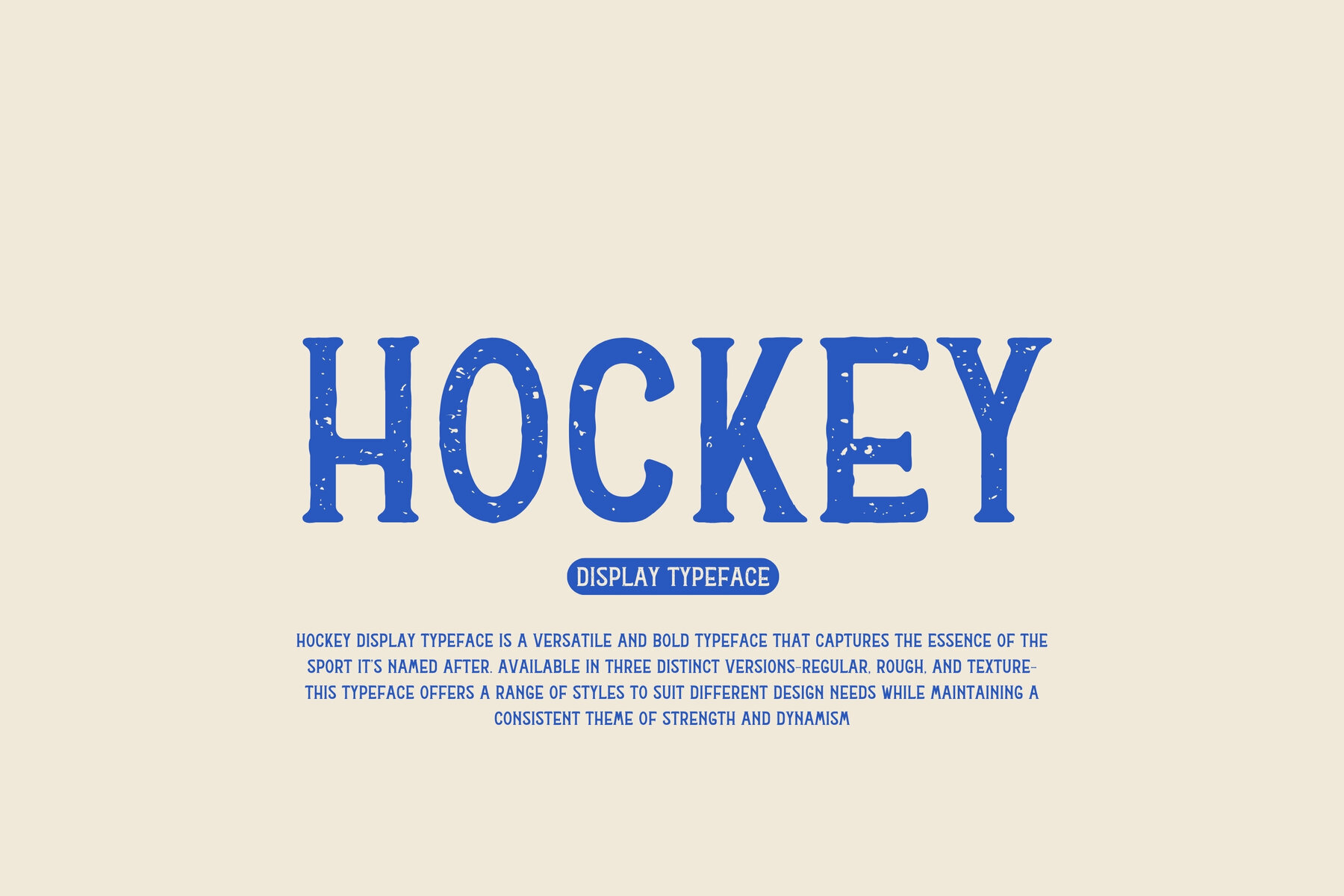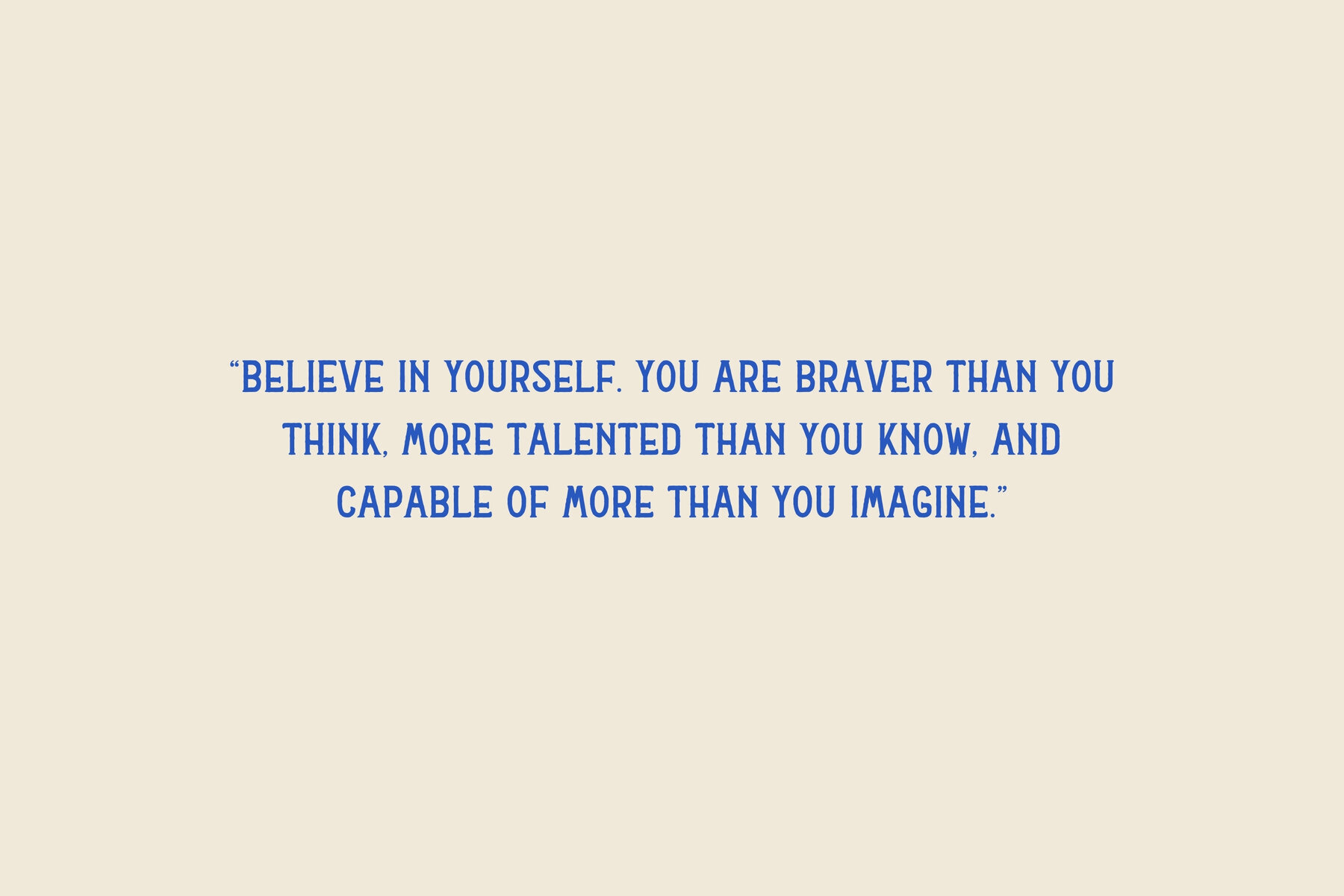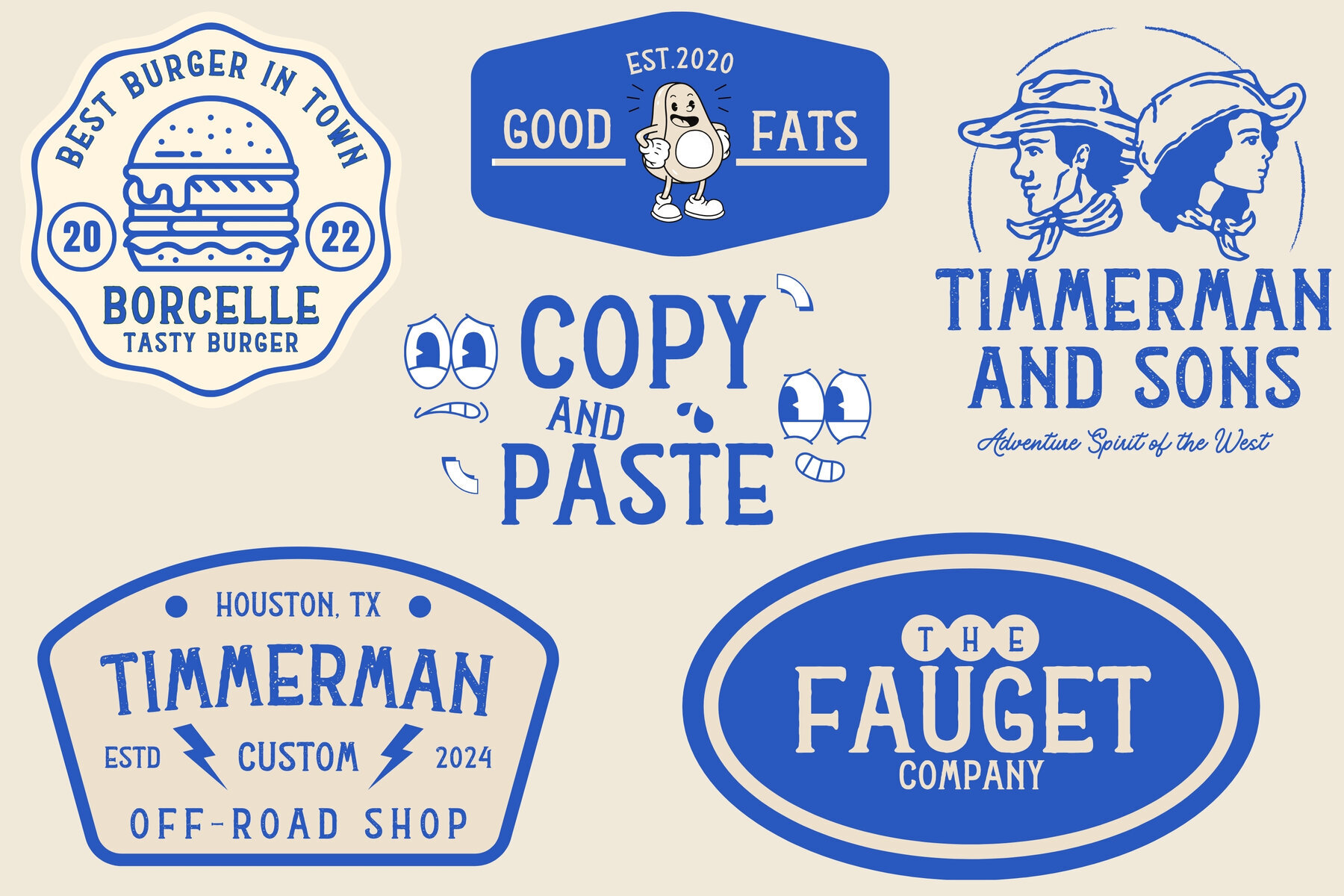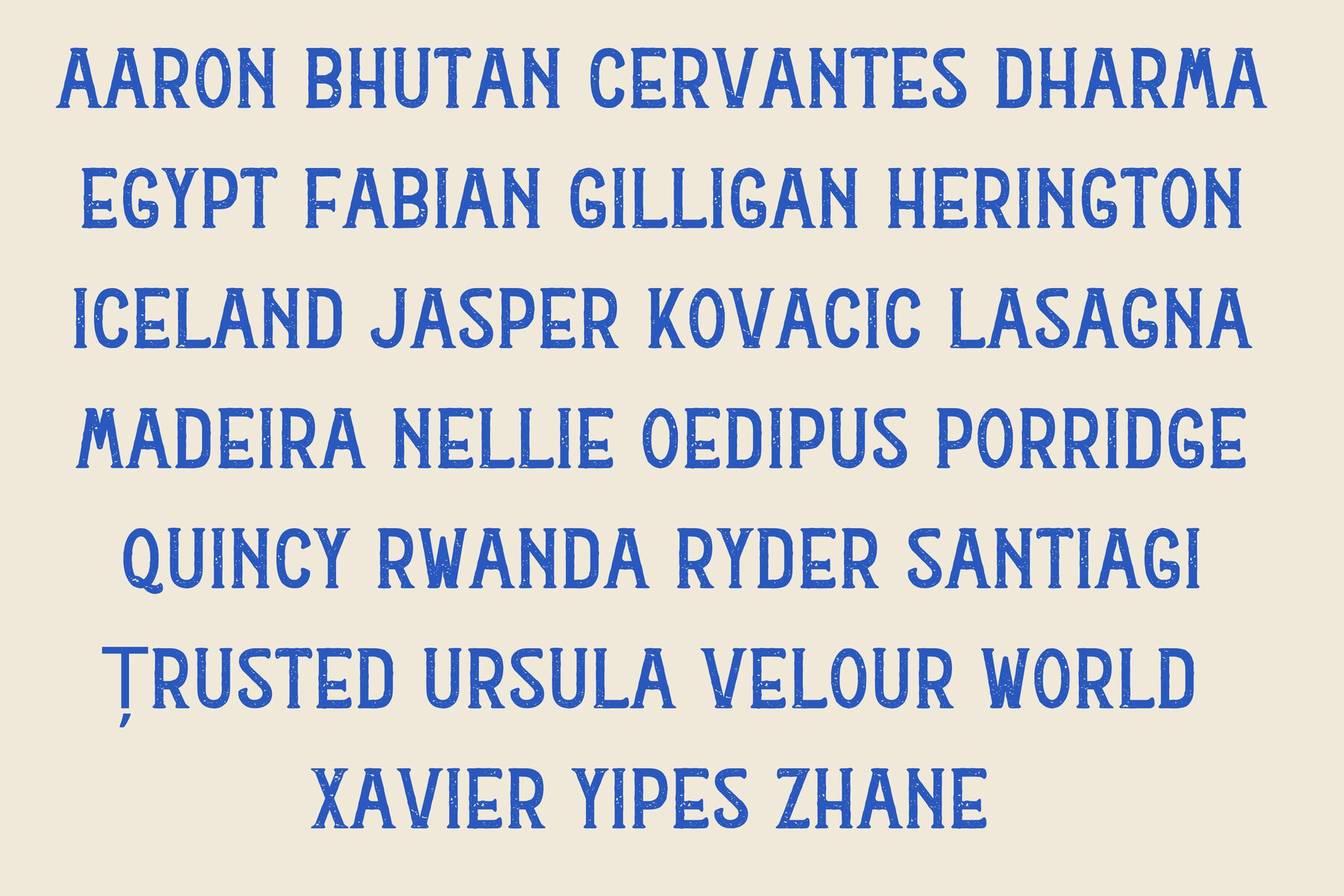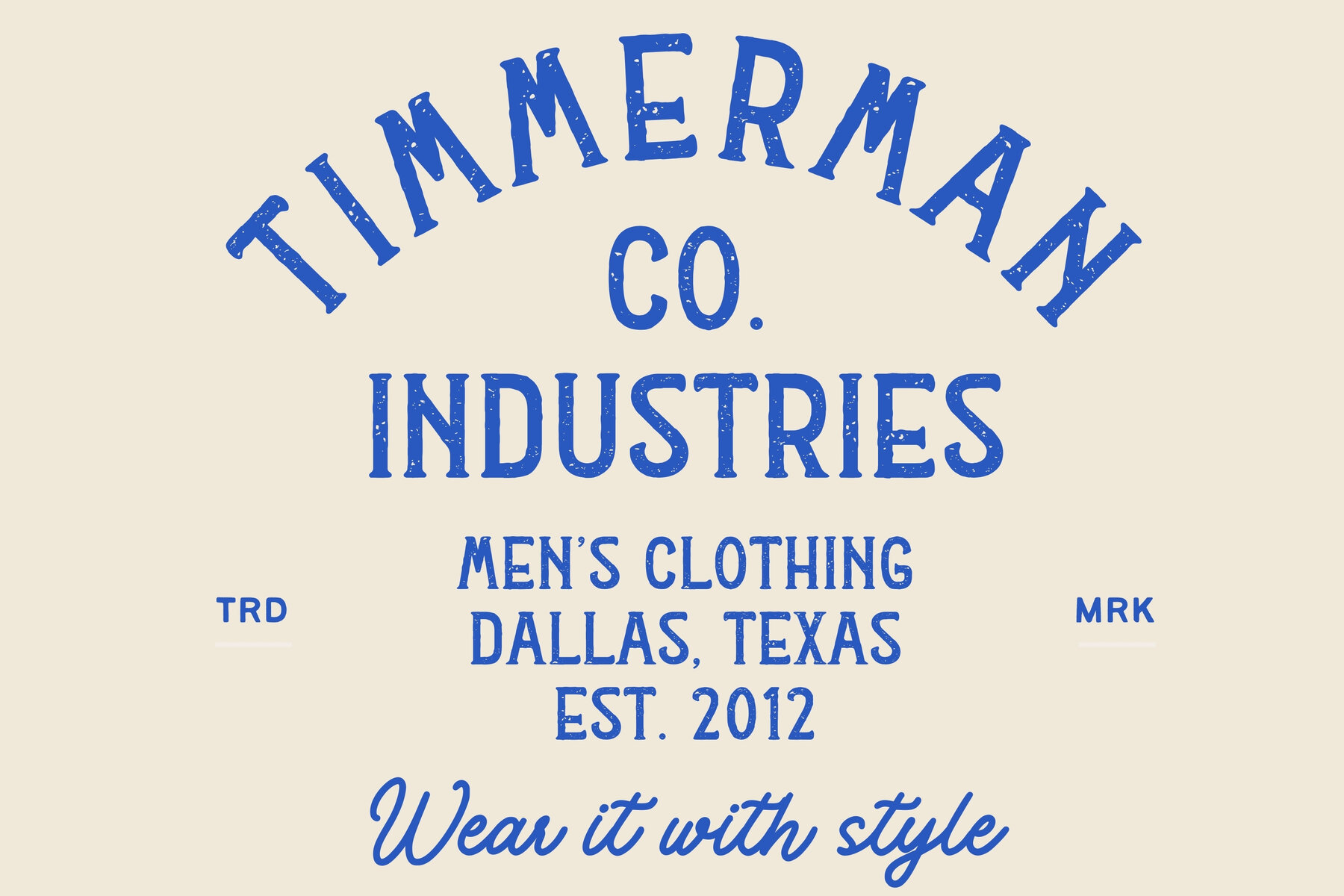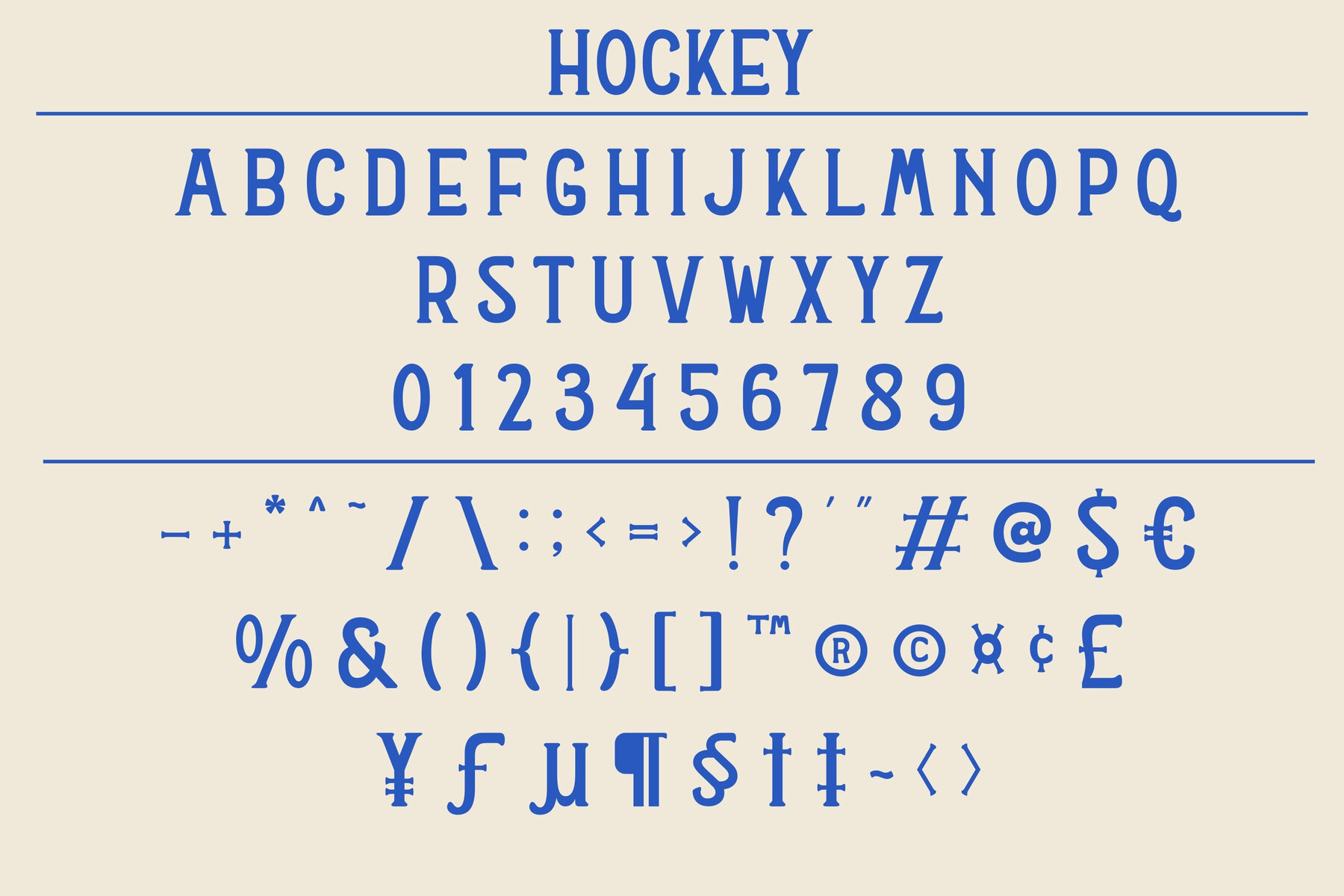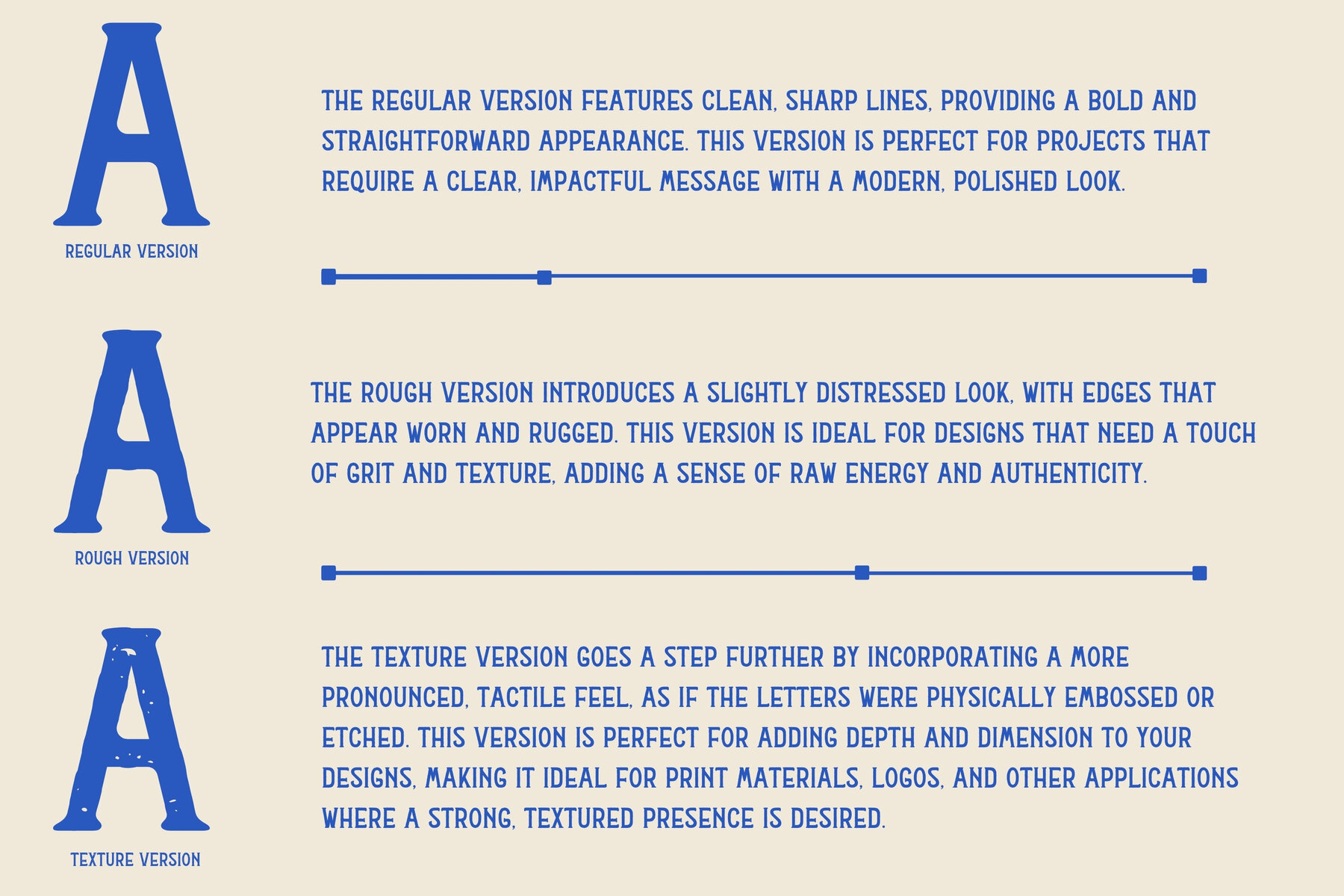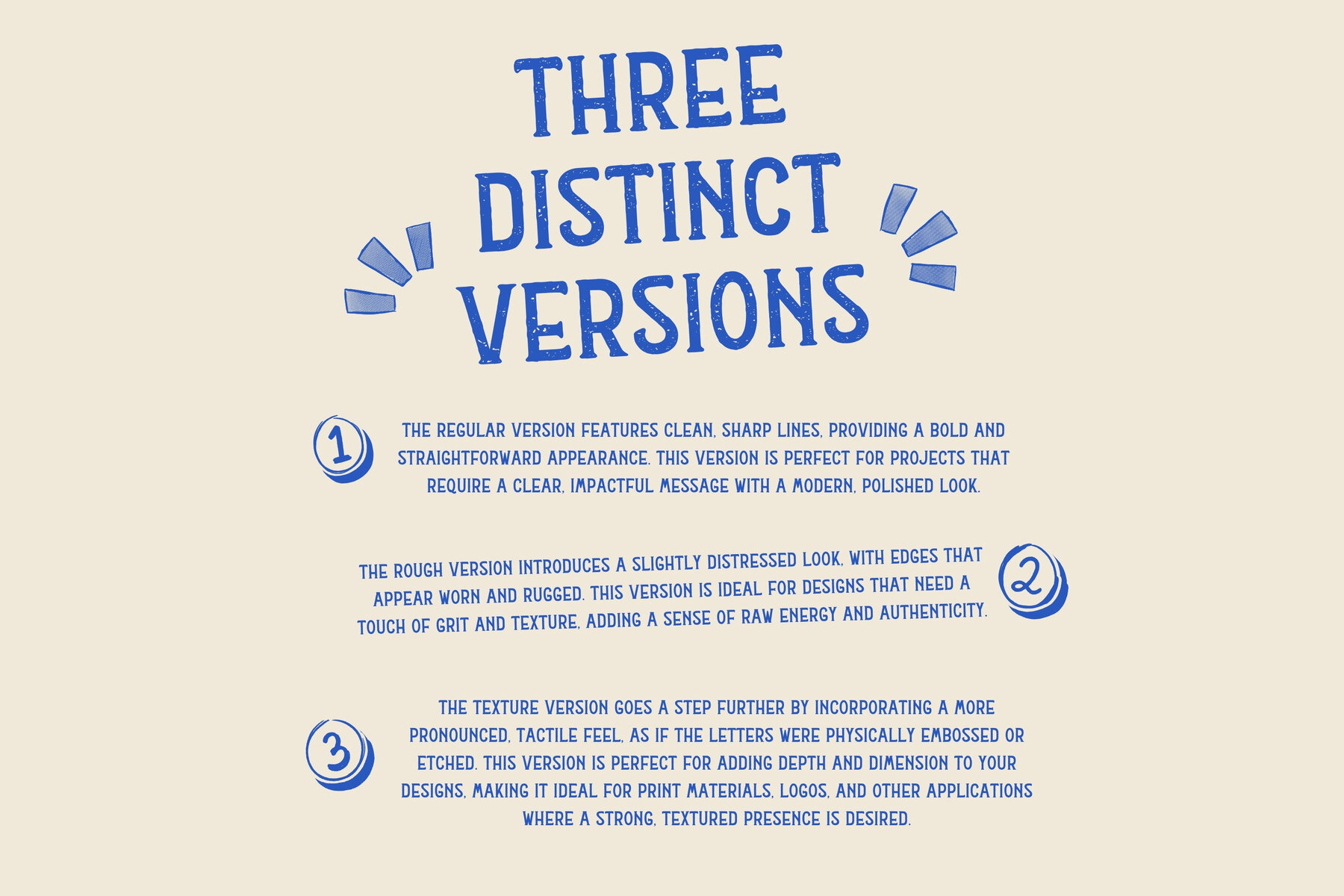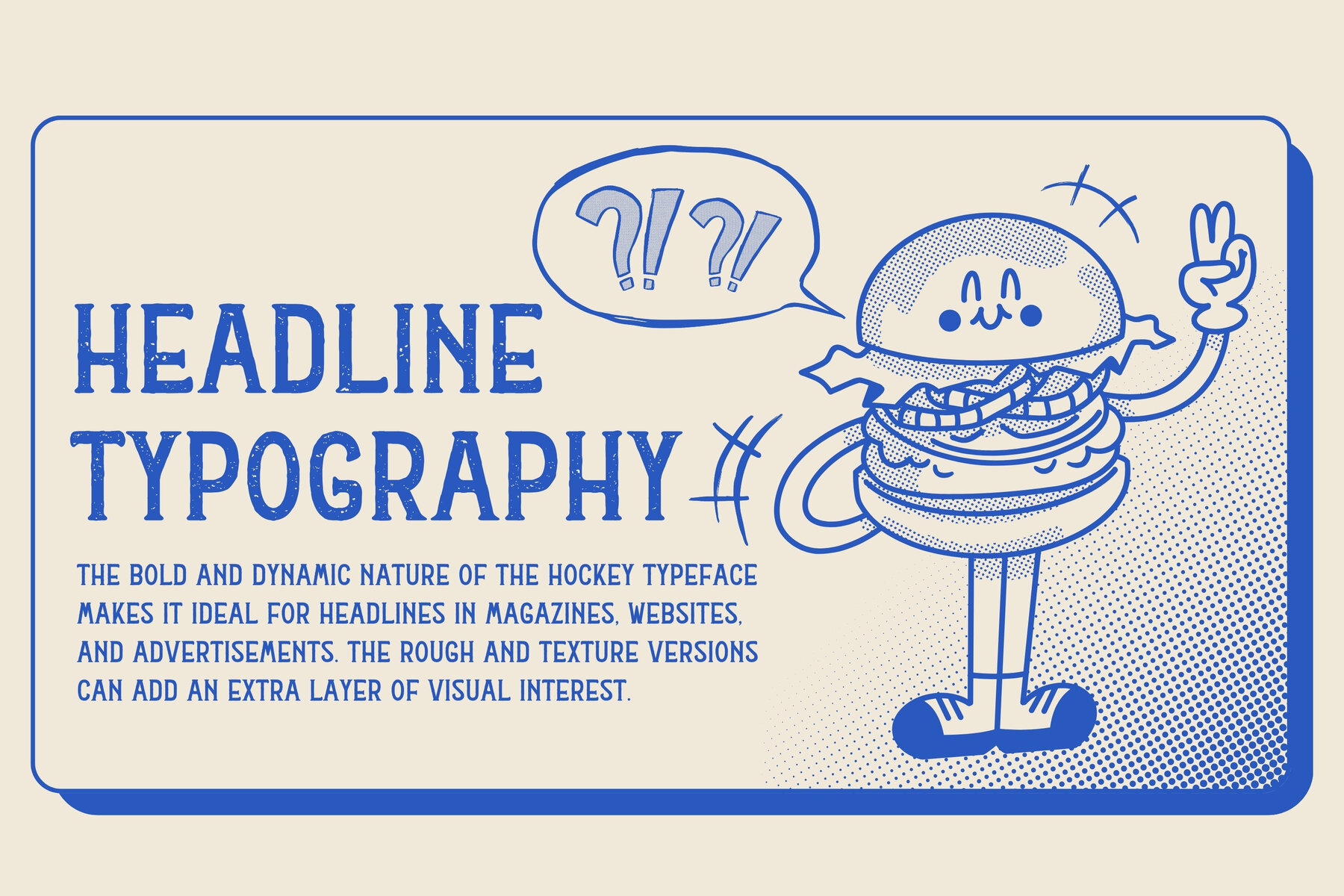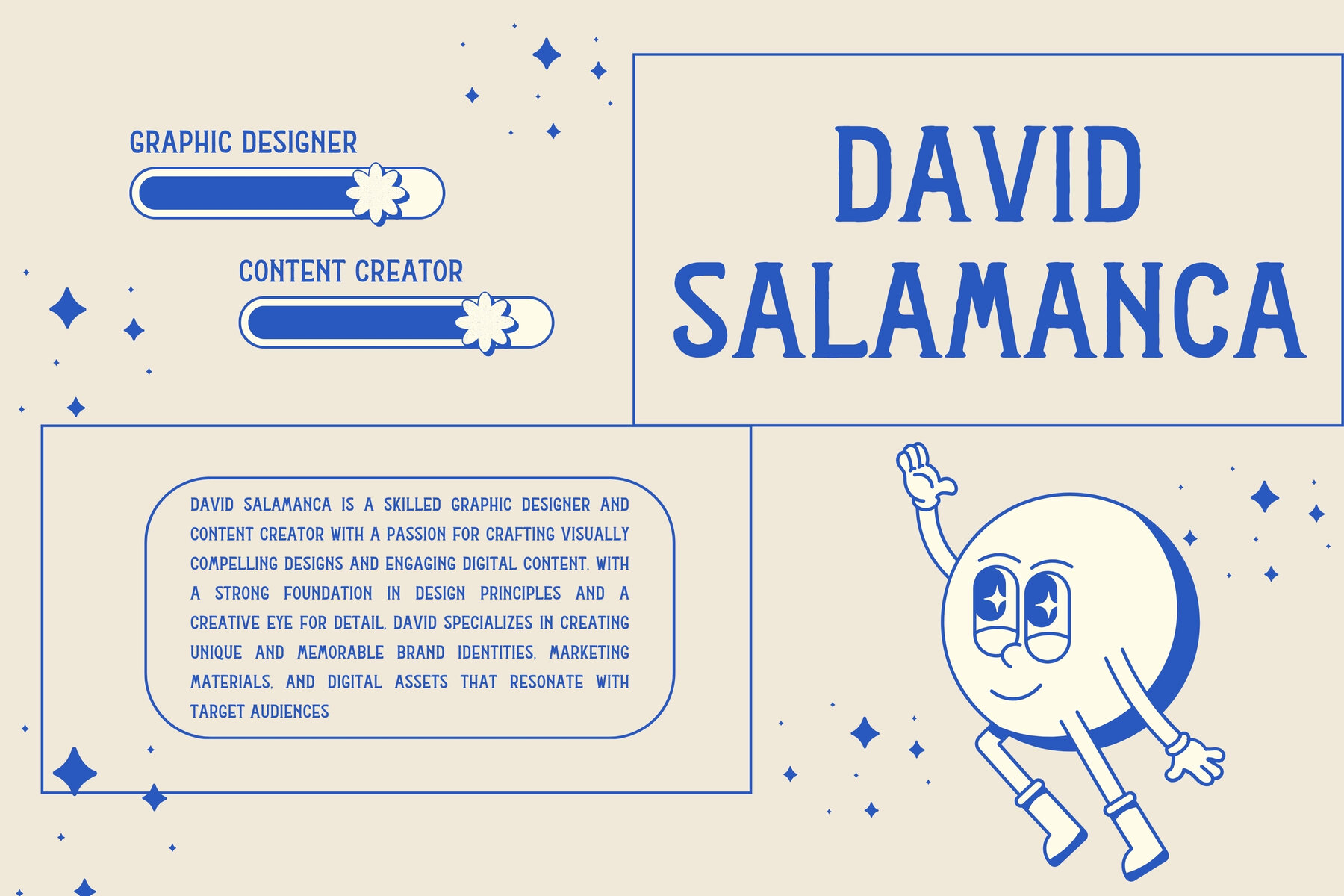
Hockey Font
The Hockey Display Typeface is a versatile and bold typeface that captures the dynamic essence of its namesake sport. Available in three distinct versions—Regular, Rough, and Texture—this typeface offers flexibility for various design needs while maintaining a theme of strength and energy. The Regular version features clean, sharp lines, suitable for projects needing a clear, impactful message with a polished look. The Rough version introduces a slightly distressed appearance, adding grit and raw energy, making it ideal for designs requiring a rugged feel. The Texture version incorporates a pronounced, tactile feel, perfect for adding depth and dimension in print materials, logos, and other applications.
Inspired by the fast-paced, high-energy nature of hockey, this typeface features bold characters with a sense of motion and power. The availability of three different styles allows designers to choose the best fit for their project, whether for a clean, modern look, a dynamic rugged feel, or a textured impact. Despite the variations in texture and style, each version maintains excellent readability, ensuring your message is clear and impactful. The Hockey Display Typeface is perfect for sports branding, event promotions, merchandise design, and headline typography, offering a versatile toolkit for conveying strength, energy, and dynamism.